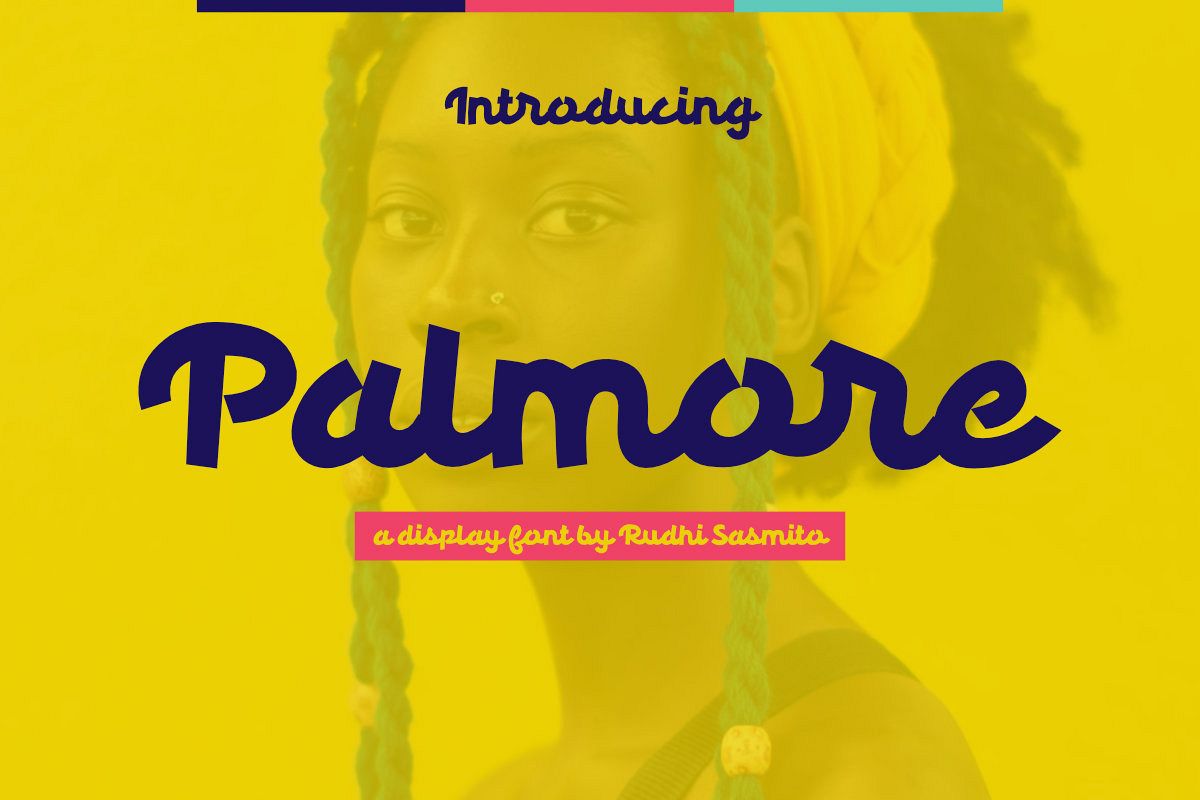
Palmore - Display Script
Palmore-Regular
Helo, friends,We are happy to introduce our new font "Palmore". Palmore is a display script font, this font looks funny, cute,playful, catchy and easy to use.Palmore Font is the best choice for your professional design projects, including : logo, poster design, t-shirt, headline, flyer, cd cover album, quotes, business card, branding, magazines, social media, advertisements, product designs, or something that need playful or cartoon looks.Highlights:Standard license - create as use as many of these fonts as you'd like on your own personal projects as well as any commercial ones for clients. No special software is required, The fonts can be opened and used in almost any program/software that can read standard fonts - even MS Word. What's included :